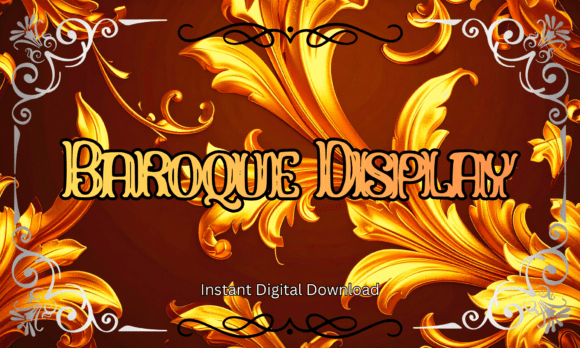
Add Timeless Elegance to Your Designs with the Baroque Display Font
As designers, we’ve all been there – staring at a blank page, trying to bring a vision to life, but struggling to find the perfect font to set the tone. It’s like searching for the perfect key to unlock the door to creativity. But what if I told you there’s a font that can transport you to a world of grandeur and sophistication, where elegance and drama reign supreme?
Enter the Baroque Display Font, a stunning typographic creation that embodies the essence of classical ornamentation and vintage typography. With its bold decorative curves, elegant serifs, and luxurious character shapes, this font is the perfect addition to any design project. Whether you’re creating logos, packaging, invitations, or wall art, the Baroque Display Font delivers a rich, sophisticated look that’s sure to leave a lasting impression.
Key Features of Baroque Display Font
- Unique Characteristics: The Baroque Display Font features intricate, ornate designs and flourishes, making it ideal for creating visually striking headlines and titles.
- Font Styles: The font includes multiple styles, including Regular, Italic, Bold, and Bold Italic, allowing for versatility in design applications.
- Scalability: The Baroque Display Font is designed to be highly scalable, ensuring that it looks great at both small and large sizes, and can be easily resized without losing its intricate details.
Baroque Display Font Review
Overall, I think the Baroque Display Font is a stunning addition to any designer’s toolkit. Here are a few things that work particularly well:
- ✨ The intricate details and ornate flourishes that make this font so distinctive.
- ✨ The font’s ability to evoke a sense of luxury and grandeur, making it perfect for high-end branding and packaging.
- ✨ The versatility of the font, which can be used for both digital and print projects.
- ⚠️ The font’s complexity can make it difficult to read in certain contexts, such as at small sizes or in low-contrast situations.
- ⚠️ The font’s ornate nature can also make it feel overly flashy or attention-seeking, which may not be suitable for all projects.
- ⚠️ The font’s limited character set can make it difficult to use in certain languages or for projects that require a wide range of special characters.
Overall, I think the Baroque Display Font is a beautiful and effective choice for designers who want to add a touch of luxury and sophistication to their projects.
For optimal results, use the Baroque Display Font for headings and titles, as its ornate design is most effective in larger font sizes.
- Poster design
- Wedding invitations
- Historical or literary-themed designs
- Decorative typography
Alternatives to Baroque Display Font
Q: What is the character set for Baroque Display Font?
Baroque Display Font includes a comprehensive character set, covering Latin, Cyrillic, and Greek alphabets. It also includes a range of punctuation marks, symbols, and diacriticals. The font is designed to support a wide range of languages, making it suitable for international designs.